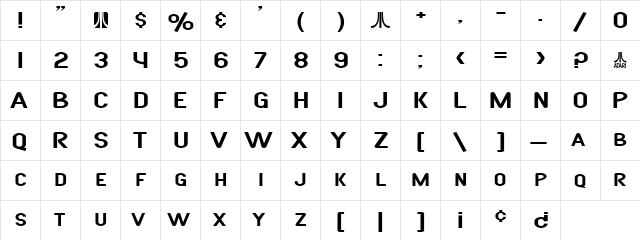
SF Atarian System Extended Regular
Design Context for SF Atarian System Extended Typeface
SF Atarian System Extended is a composed and adaptable typeface that performs quietly and consistently across a wide range of design contexts.